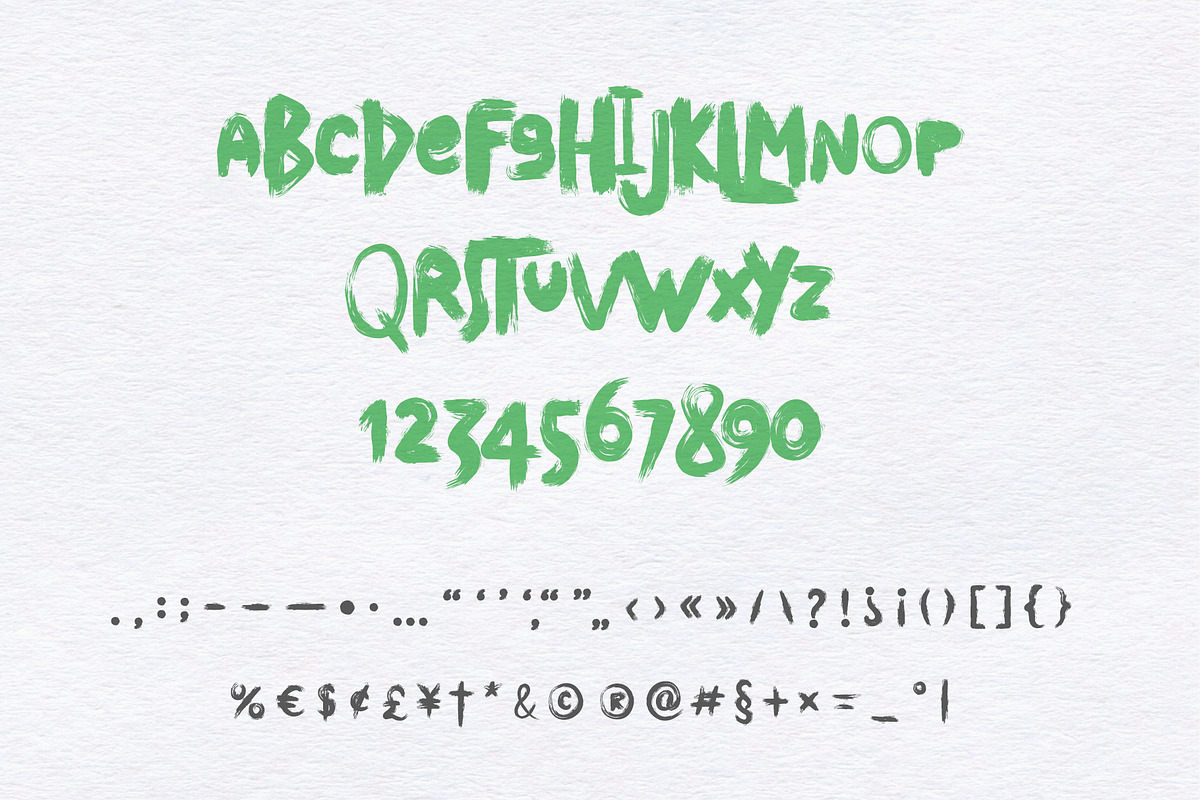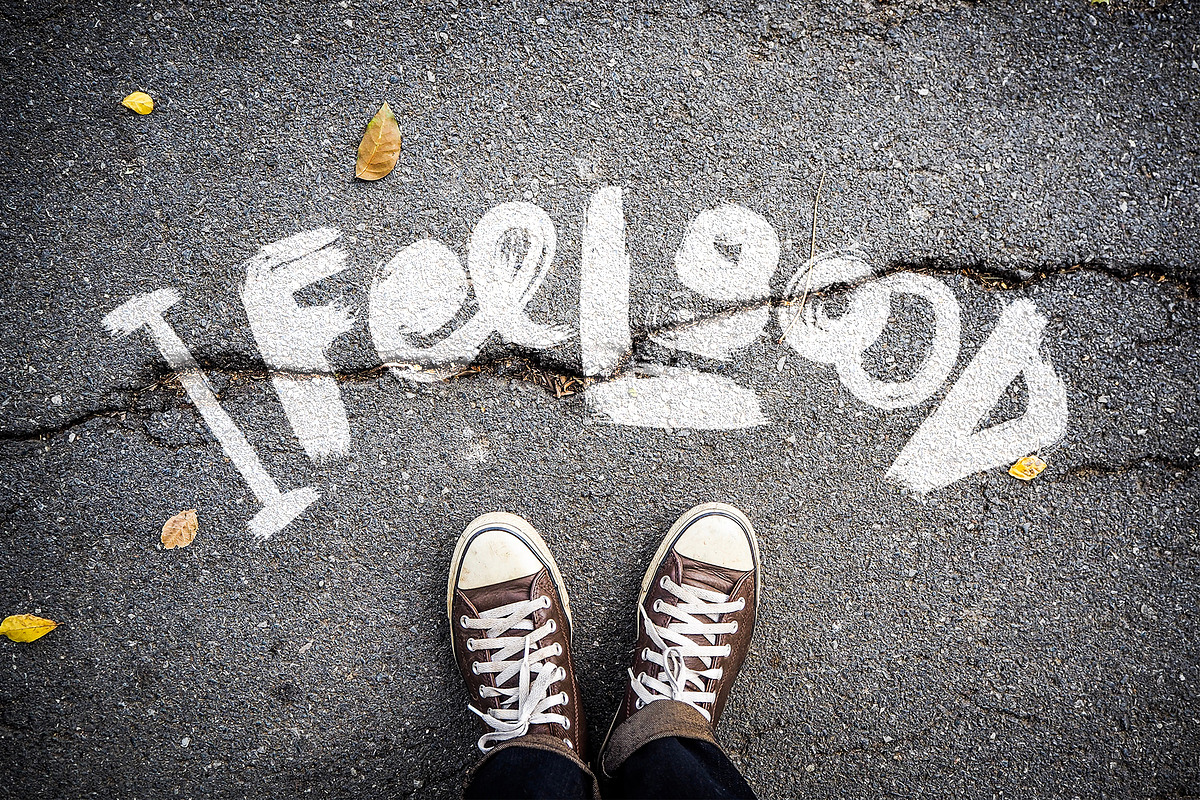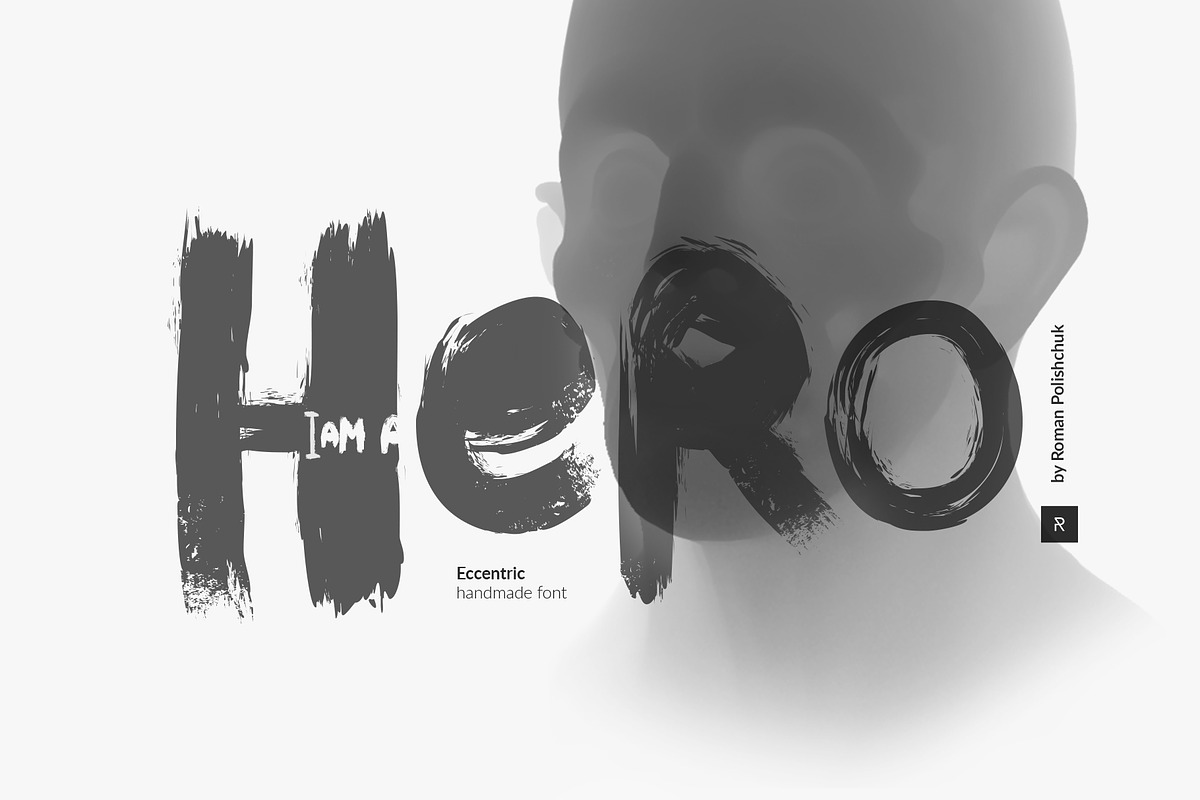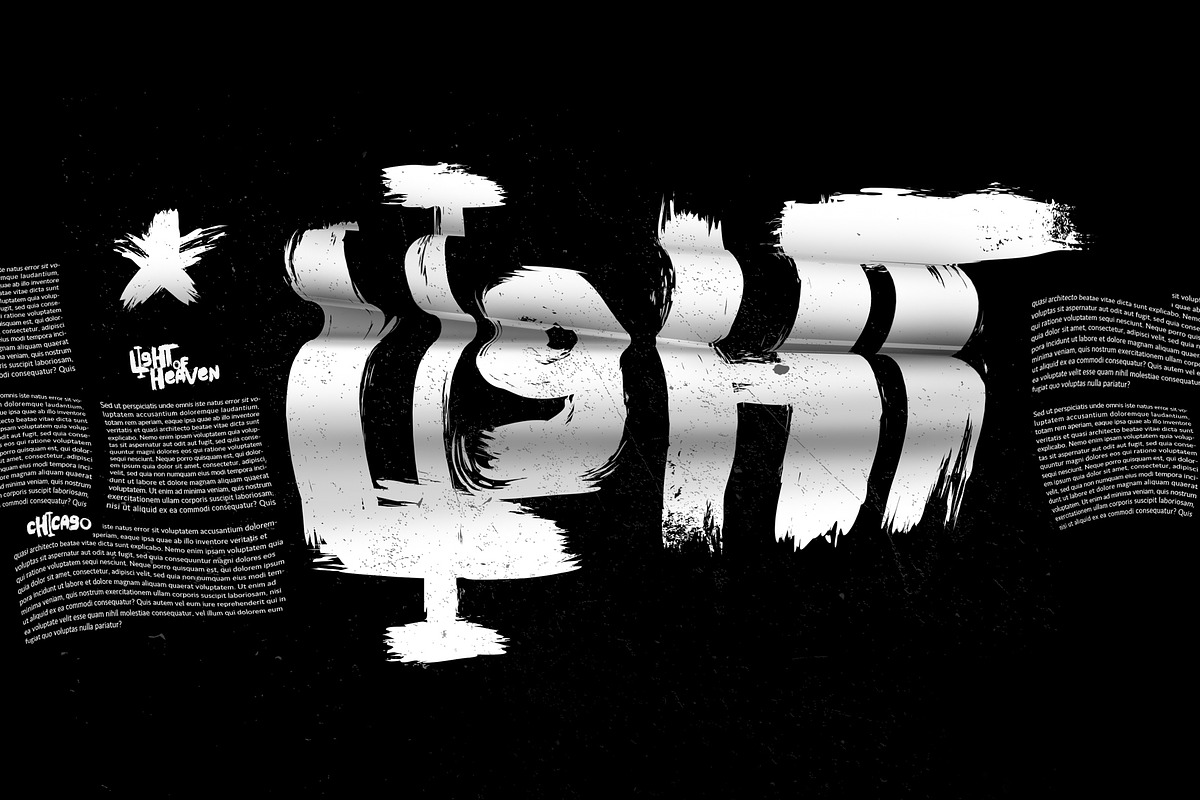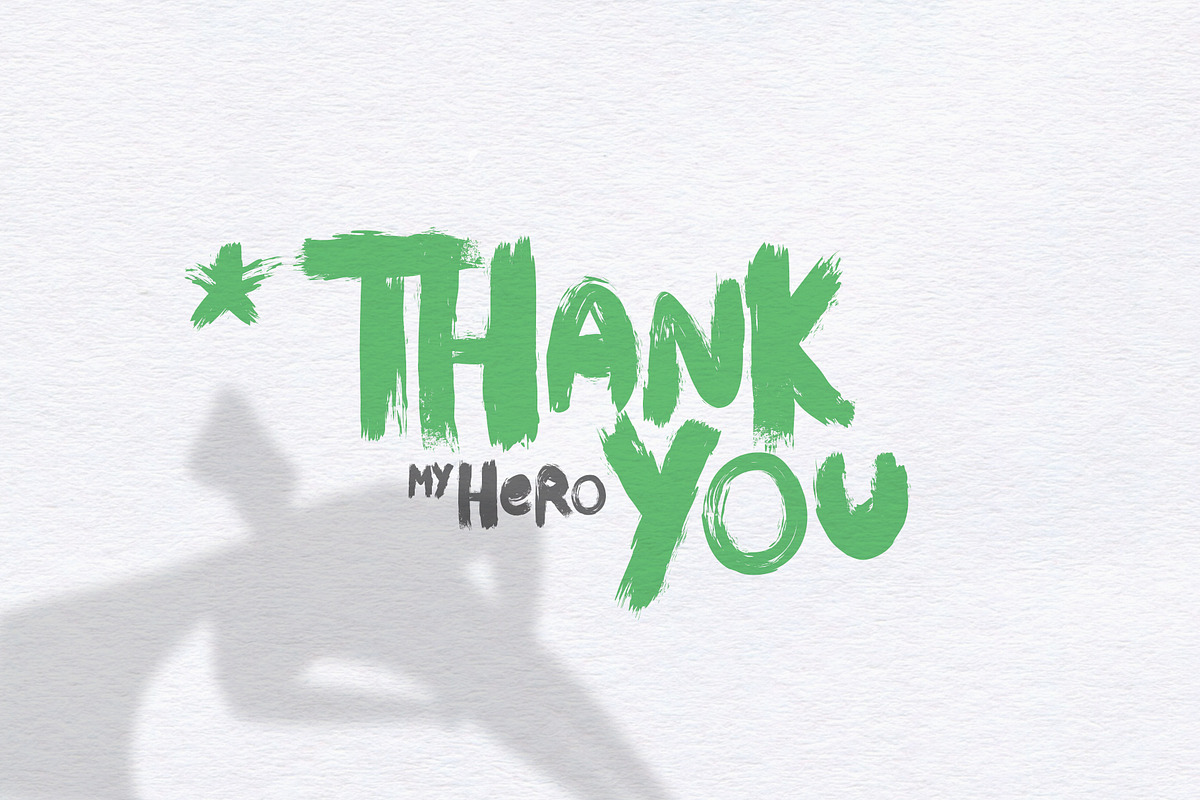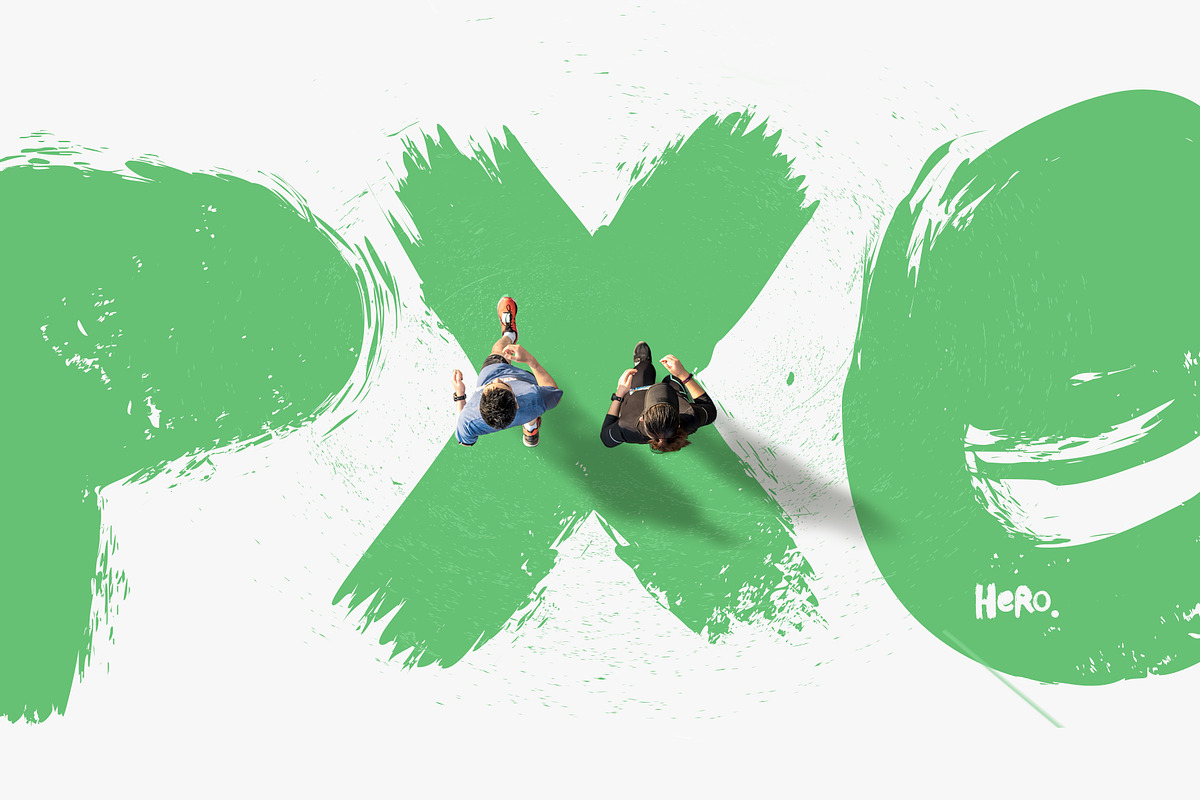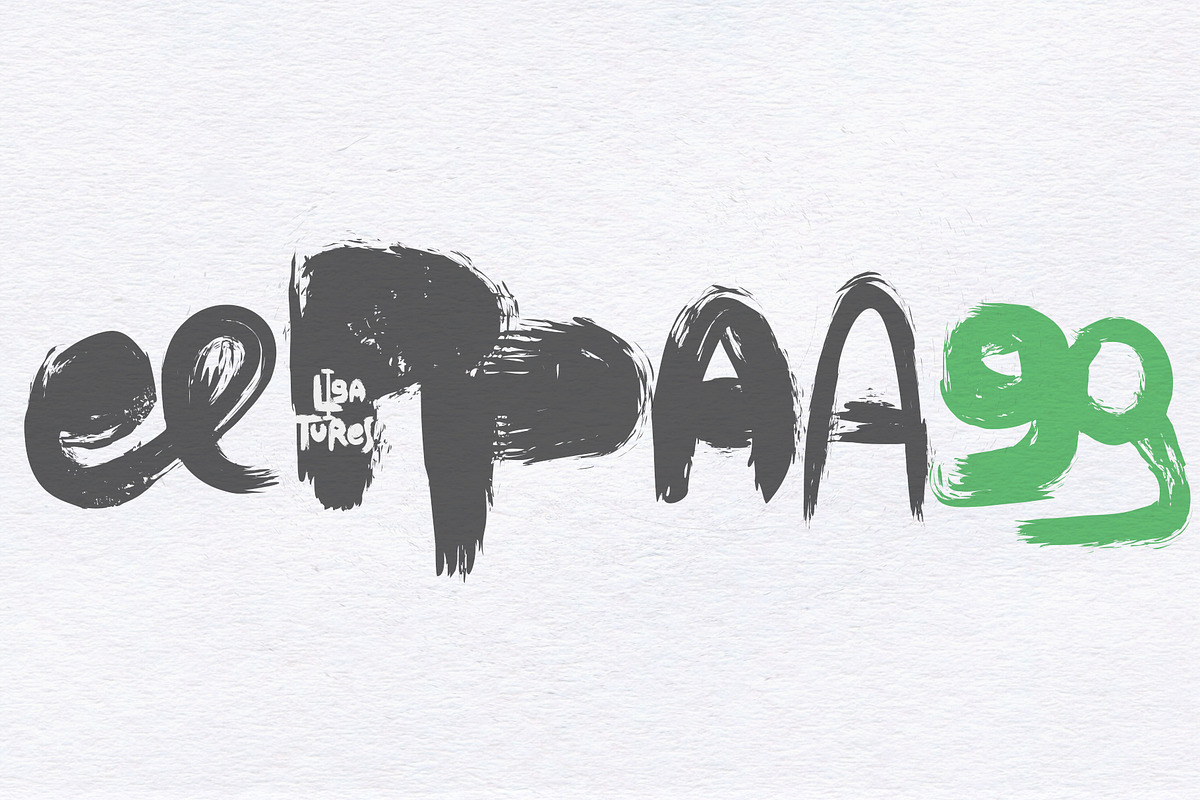
Hero — hand drawn font
Hero is a naturalistic, handwritten font. It features high detail and beautiful brush strokes . Support for ligatures allows you to create a truly unique typography that resembles lettering. Feel free to ask and give your opinion about this font.
Each designer should have a hero who inspires him.
- Support for ligatures allows you to create a truly unique typography that resembles lettering.
Hero — hand drawn font by Roman Polishchuk fits naturally into Branding, posters, packaging, typography.